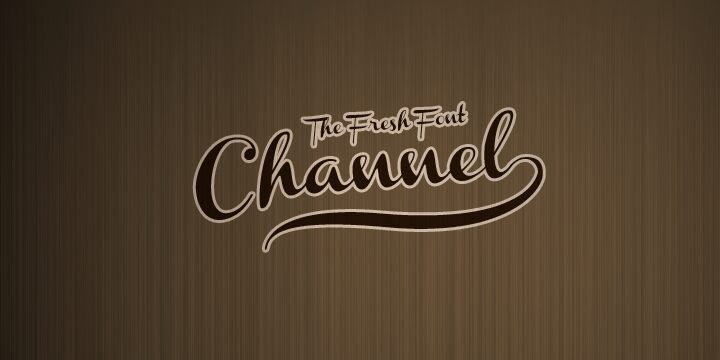
Channel by Måns Grebäck is a free calligraphic script with dramatic changes between hairline strokes and broad, ink-dark curves. Its capitals rise into tall loops and sweeping crossbars. The lowercase forms are compact and lively, with pointed joins and quick, upward flicks.
Wedding invitations are an especially good fit for its formal movement and flourishes. The same theatrical drawing can give fashion packaging and event posters a confident, personal signature. On album artwork, the long strokes can weave through photography or ornamental illustration as part of the image itself.
Channel